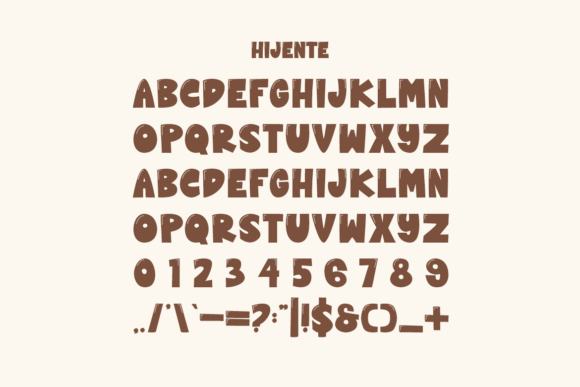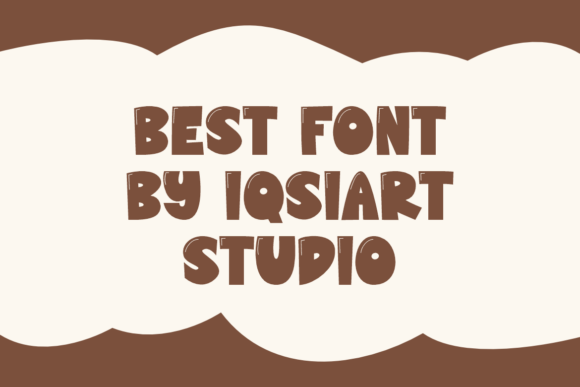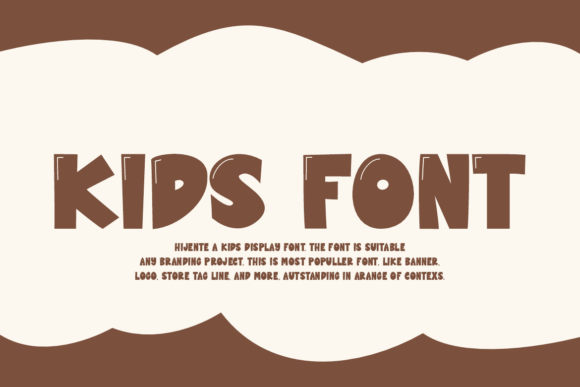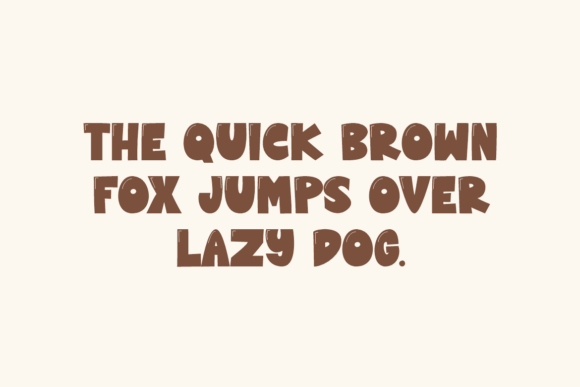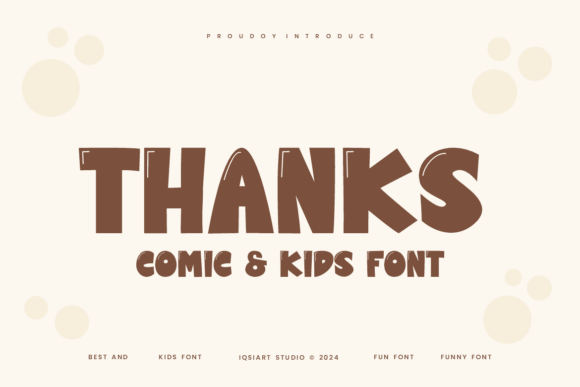
Introduction to Hijente Font
Hijenteis a cute and quirky display font.
It will add an incredibly joyful touch to your designs Add this beautiful display font to each of your creative ideas and notice how it makes them stand out.
Key Features of Hijente Font